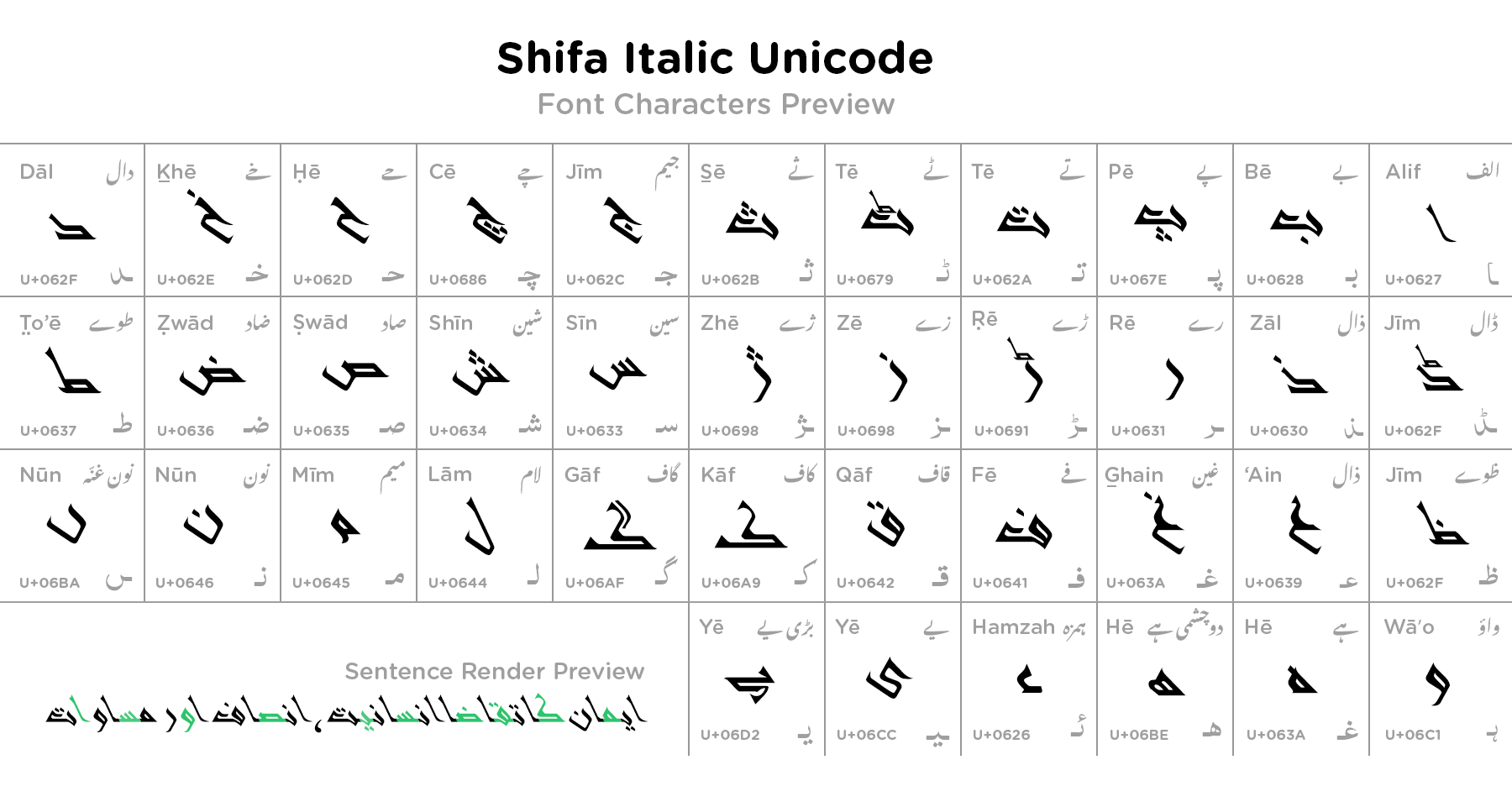
Shifa Italic Unicode
Shifa Italic Unicode, crafted by designer Syed Manzar Hasan Zaidi and released by Axis Softmedia Pvt. Ltd., introduces a modern twist to Urdu typography with its italicized style. Launched on October 10, 2017, this font draws inspiration from Naskh’s script, infusing it with modern influences for a unique aesthetic. With 444 characters and 497 glyphs, it supports Arabic, Latin, Greek, and Symbols across various Unicode blocks. Despite offering only one font weight (regular), the font stands out for its bold, dynamically changing thickness and impactful strokes. However, its legibility on screens is comparatively low, making it best suited for short-text applications due to its intricate design.
The font’s highly decorative nature is characterized by fat, filled letters with razor-sharp pointy edges and corners, giving off a modern and stylish vibe. With a slight left-to-right slant, Shifa Italic Unicode adds a touch of creativity to any project, making it particularly suitable for horror book covers or posters. Whether for digital or print media, this font makes a bold statement and commands attention with its striking appearance.